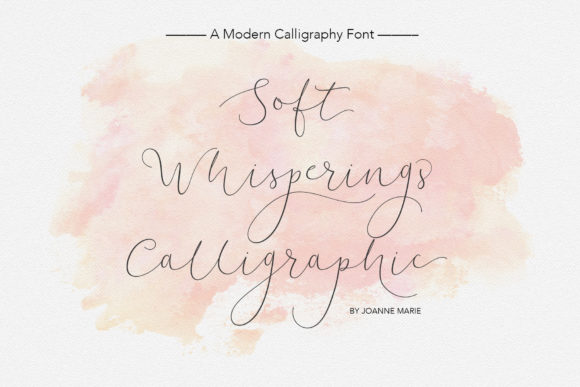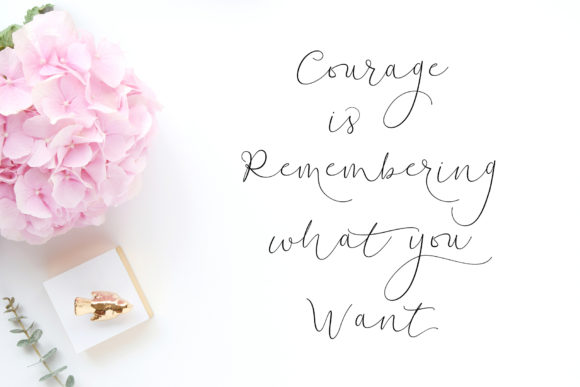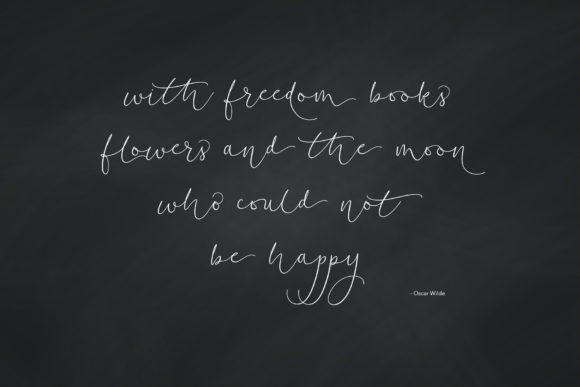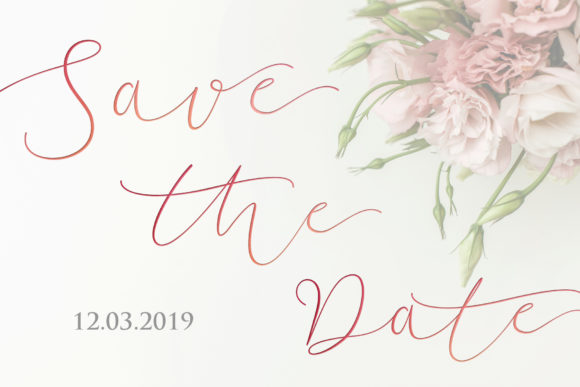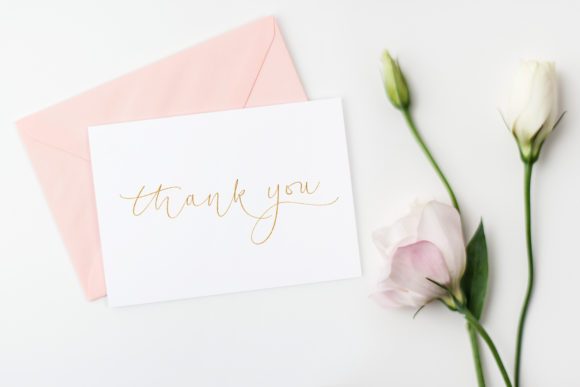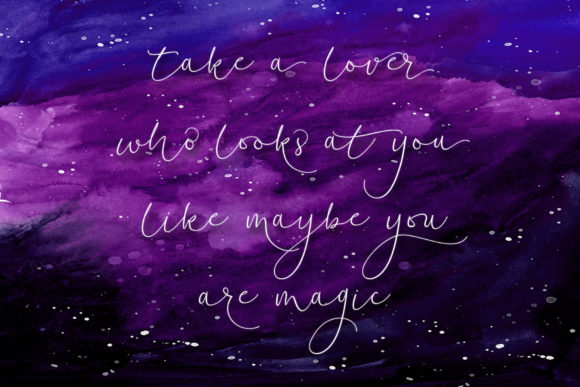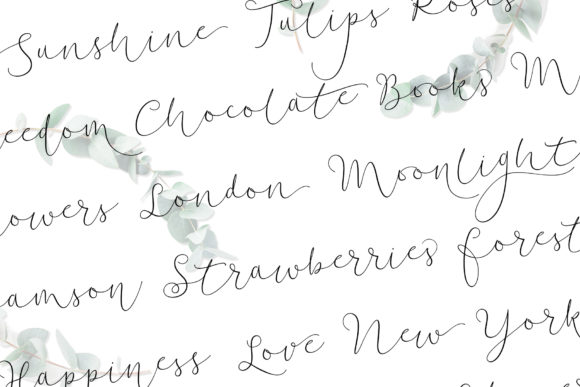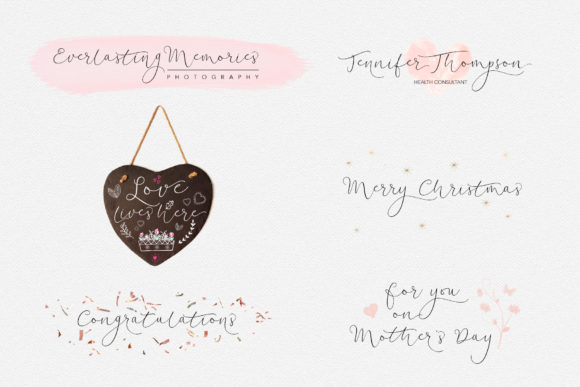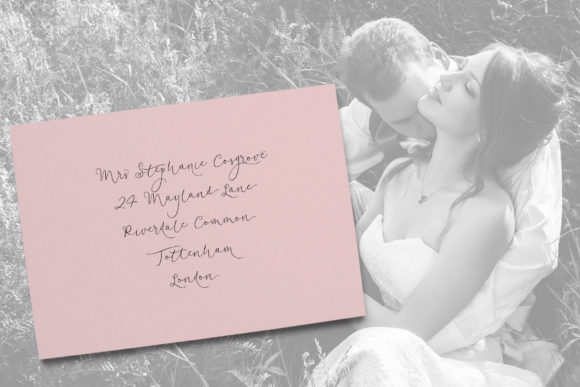
HomeScript FontsSoft Whisperings Font Script Fonts Soft Whisperings Font FacebookXPinterestWhatsApp Soft Whisperings Font Poster 2 Soft Whisperings Font Poster 3 Soft Whisperings Font Poster 4 Soft Whisperings Font Poster 5 Soft Whisperings Font Poster 6 Soft Whisperings Font Poster 7 Soft Whisperings Font Poster 8 Soft Whisperings Font Poster 9 About Soft Whisperings Font Soft Whisperings is a romantic and sweet script that will add an authentic vibe to any design idea. DOWNLOAD ON CREATIVE FABRICAThis font is sold and delivered by Creative Fabrica. Font Canyon may earn a commission if you buy through this link. People also explored Honeyworker Font Clothes Font Melody Font Send My Love Font Aromatic Font Rainbow Butterfly Font Christmas Snowtext Font Castile Mastah Font Water Splash Font 714 0 TagsSoft Whisperings Font Previous articleDreamelly FontNext articleBlast Slatton Font LEAVE A REPLY Cancel reply Comment: Please enter your comment! Name:* Please enter your name here Email:* You have entered an incorrect email address! Please enter your email address here Website: Save my name, email, and website in this browser for the next time I comment. Personal Use Free Sushi Stroke Personal Use Free Read more about this font Scarlove Personal Use Free Read more about this font Amellis Path Personal Use Free Read more about this font Ayam Bakar Personal Use Free Read more about this font BLOG Best Fonts for T-Shirt Design – Top 2025 Picks In 2025, t-shirt design has become more than just fashion—it's a form of self-expression. Whether you're... Where to Buy American Fonts Online in 2024 Using Fonts in Digital Marketing: Tips to Strengthen Your Brand Identity Elegant Wedding Invitation Fonts – Handwritten & Script Fonts